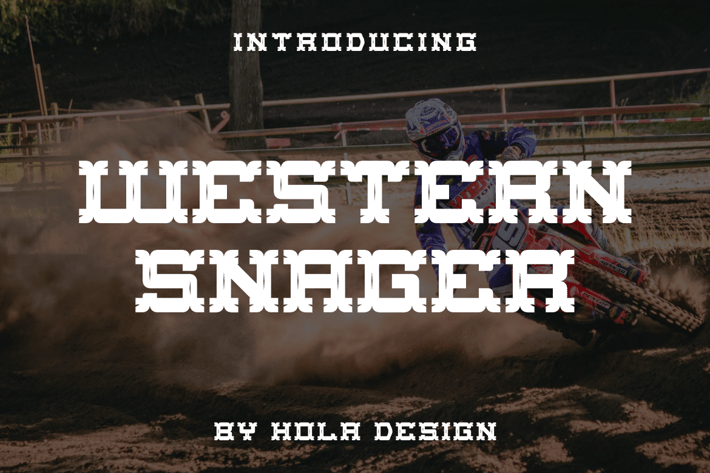
Western Snager - Decorative Font
Western Snager Font is unique . Ready to use for your design like labeling, movie sceen, poster, movie title, gigs, album covers, logos, and much more.